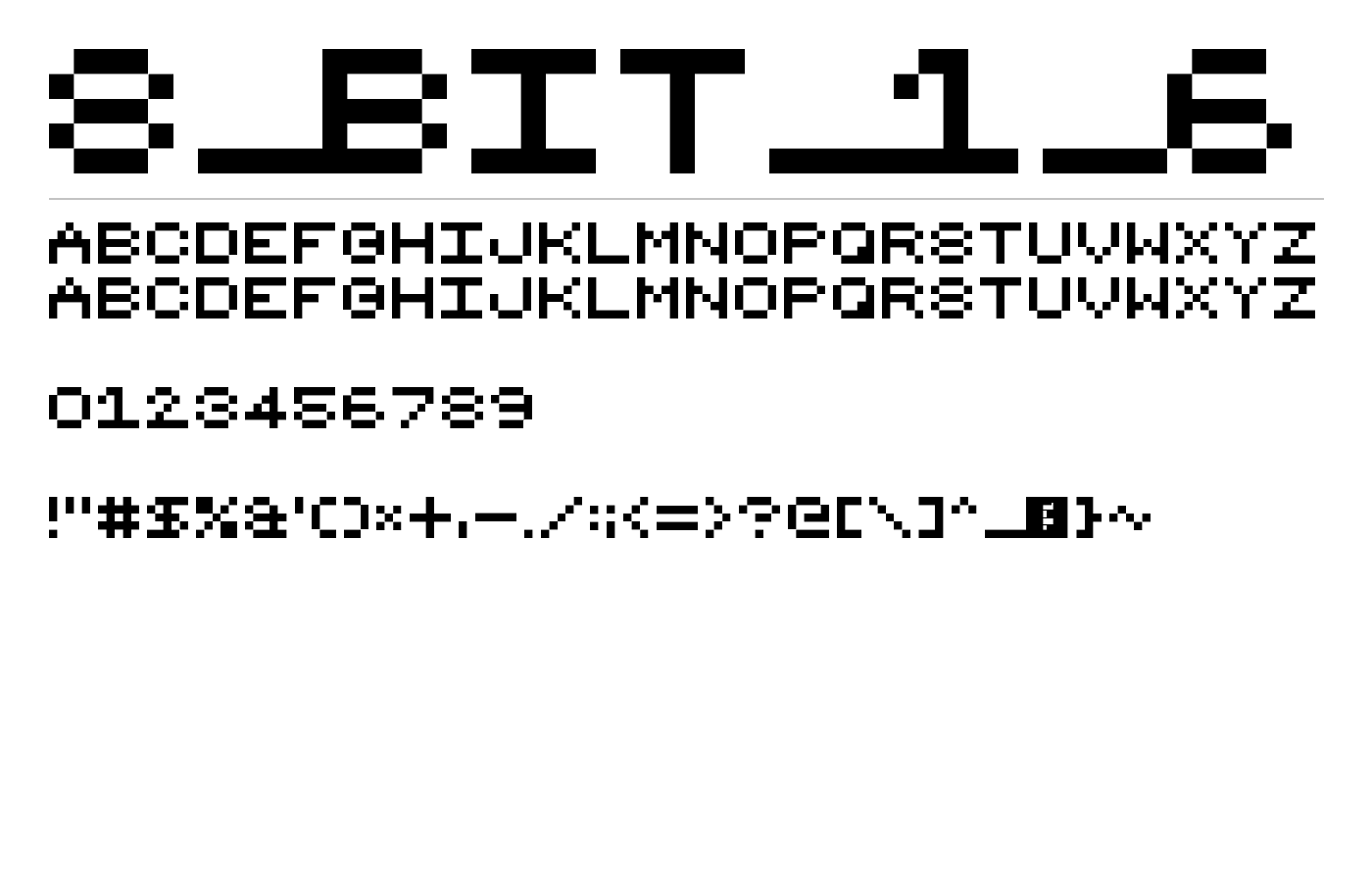
8_bit_1_6 is a pixelated, monospaced sans serif font that captures the nostalgic charm of early digital displays and retro video games. With its blocky, low-resolution letterforms and consistent stroke weight, it conveys a techy, playful vibe perfect for projects looking to evoke an 8-bit or vintage computer aesthetic. This font works great for gaming graphics, digital art, or any design needing a bold, nostalgic pixel style.
8_bit_1_6 Font
About 8_bit_1_6 Font
| Font family | 8_bit_1_6 Font |
| Designer | zgmg |